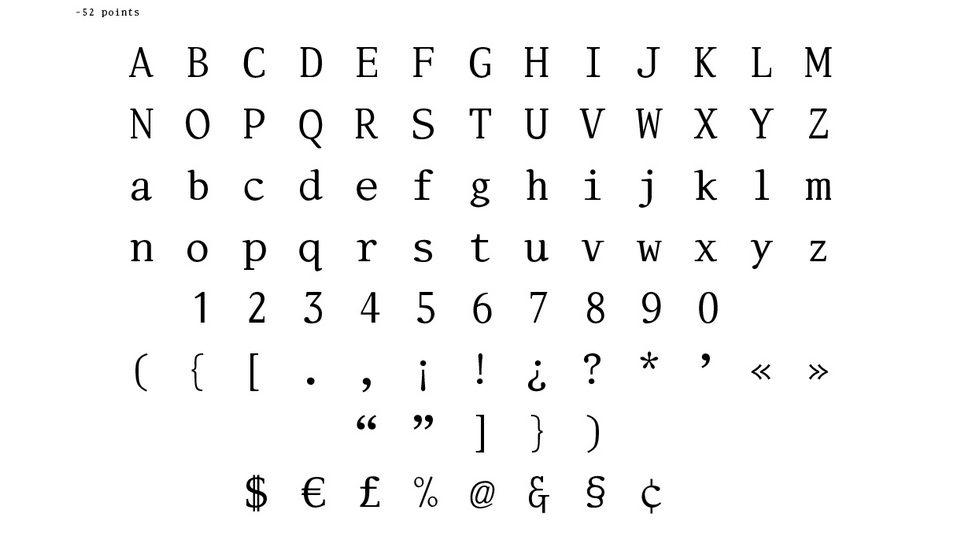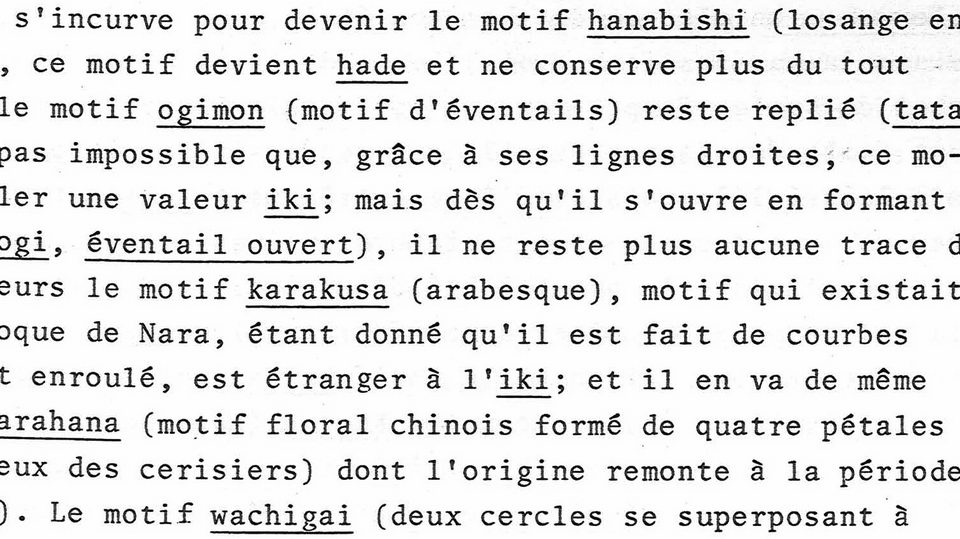
Selectric is a serif typeface inspired by characters of ADJUTANT IBM Selectric Typewriter. In 1961, IBM Selectric was the first typewriting machine using a shpere (frequently called a “type ball”) instead of individual typebars.
Selectric featuring the rigidity of the monospace system mixed with the old style garalde serif style of the letters. It comes in Mono and Roman styles.